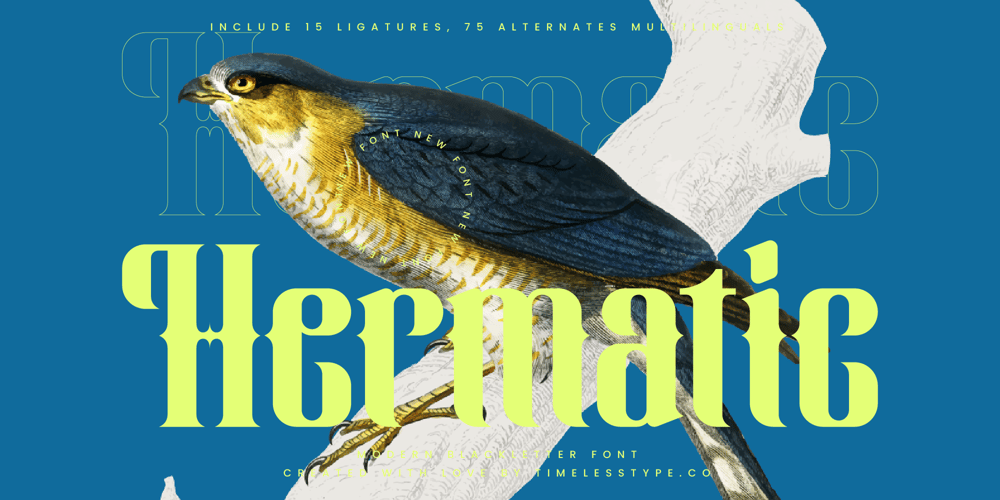
Hermatic
Hermatic font
Hermatic Font Family was designed by Heru Utama Putra and published by Timelesstype Studio. Hermatic contains 2 styles and family package options. Hermatic – Modern Blackletter Font , from Timelesstype, Suitable for any projects such as: logos, branding projects, homeware designs, product packaging, mugs, quotes, posters, shopping bags, t-shirts, book covers, name card, invitation cards, greeting cards, label, photography, watermark, special events, and all your other luxury and beautiful projects that need a Luxury Serif taste.